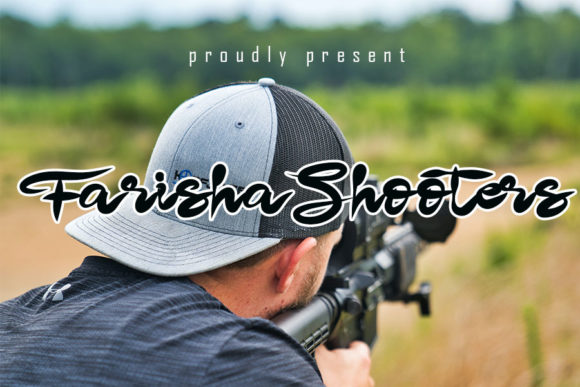
Journey into the realm of typography with Farisha Shooter, a script font that's not just a collection of letters, but a portal to creativity. This meticulously crafted handwritten font, brought to life by the visionary muhawk47, is your gateway to expressing love in its most enchanting form.
Imagine your love quotes adorned with the flowing elegance of Farisha Shooter, each word dancing across the page like a whisper of affection. This font is not merely a tool for communication; it's an instrument of romance, transforming your words into heartfelt melodies that resonate with your audience.
Feel the passion ignite as your love letters, cards, and social media posts are infused with the allure of Farisha Shooter. Its graceful curves and delicate strokes evoke a sense of intimacy, drawing your readers into the depths of your emotions.
With Farisha Shooter, you'll discover a font that's not just visually captivating but also versatile, lending its charm to a myriad of creative endeavors. Design wedding invitations that exude timeless elegance, create personalized gifts that speak volumes, or craft stunning logos that leave a lasting impression.
The possibilities are limitless with Farisha Shooter. Dive into the world of love and creativity, letting this font guide you towards masterpieces that touch hearts and leave an eternal mark. Embrace the power of Farisha Shooter and watch as your words blossom into a symphony of love.